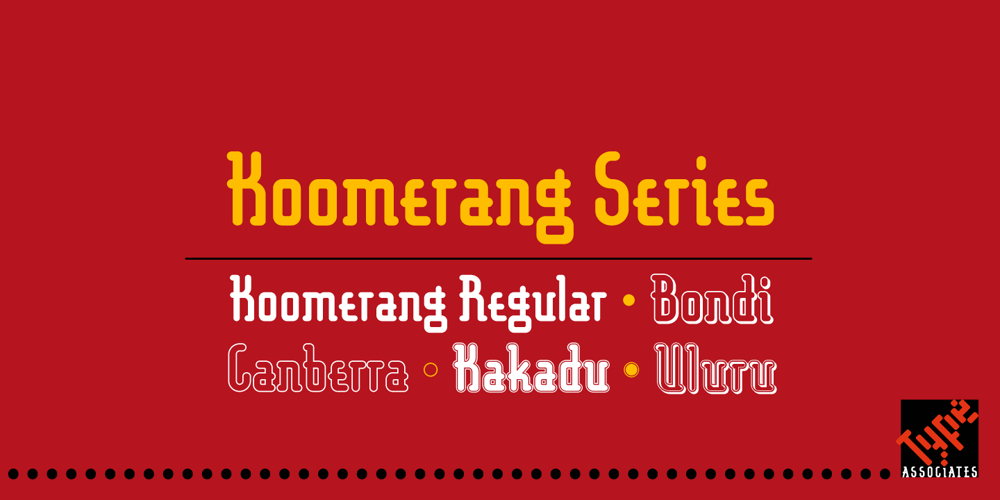
Koomerang
Koomerang font
Koomerang Font Family was designed by published by Type Associates. Koomerang contains 5 styles and family package options. I arrived this concept as a means to fulfil a need for a simple yet radical semi-sans with rounded terminals. My concept called for a modular approach so a single weight font family resulted, the monoline stroke weights being one-eighth of the cap height and the x-height five-eights, the descent two units. Within these constraints I found it was simple to devise an alphabet which met my need for quirkiness whilst retaining its legibility. As for the outline, shadow and contour variants – well they just seem to work. If you are wondering – and you don’t hail from the “Land Downunder” – Canberra is our nation’s capital; Bondi – “water breaking over rocks” a beautiful beach in Sydney; Uluru is the name given to the world’s largest pebble, (formerly known as Ayers Rock); Kakadu is a national park in the “Top End” and Koomerang means “hill of clouds” – all place names in their respective Australian indigenous languages. Come on down – the natives are friendly.